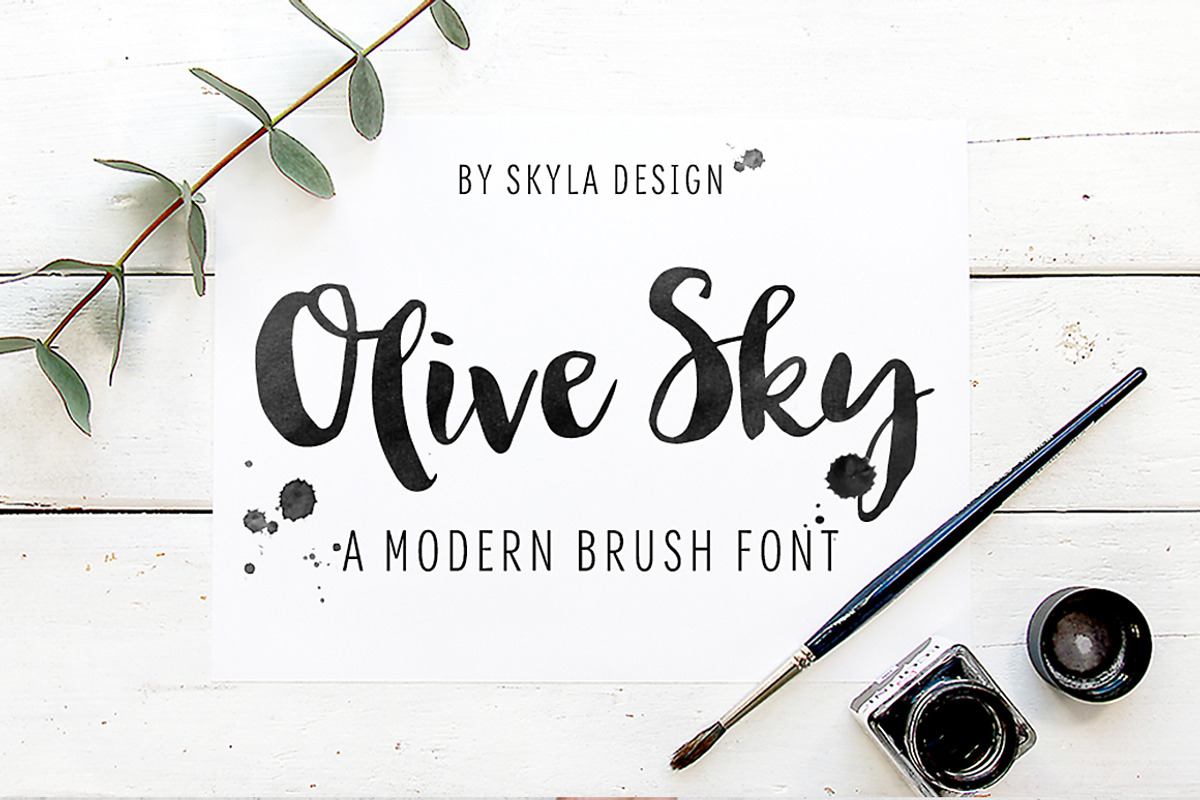
Olive Sky – Modern Brush Font Free Download
You must purchase this font for commercial use. However, you can download Olive Sky – Modern Brush Font Free Download for testing purposes. Olive Sky is a modern brush font that captures the organic flow of handwritten calligraphy with a fresh, bold style. Perfect for branding, logos, posters, invitations, and creative social media graphics, this font brings a personal and artistic touch to your designs.
With its expressive strokes, natural textures, and dynamic brush pen feel, Olive Sky adds a creative and contemporary flair to your projects. Whether you're designing a brand identity, a wedding invitation, or an artistic poster, this font’s unique style will stand out and make your work feel personalized and vibrant.